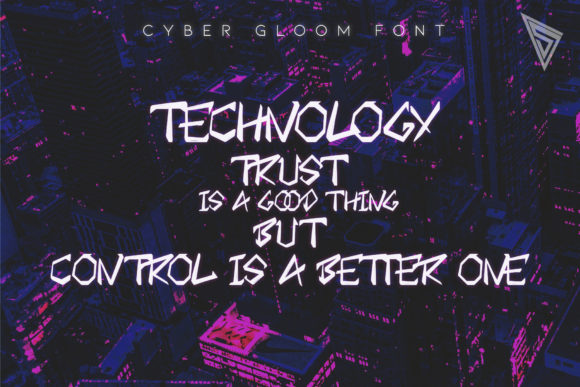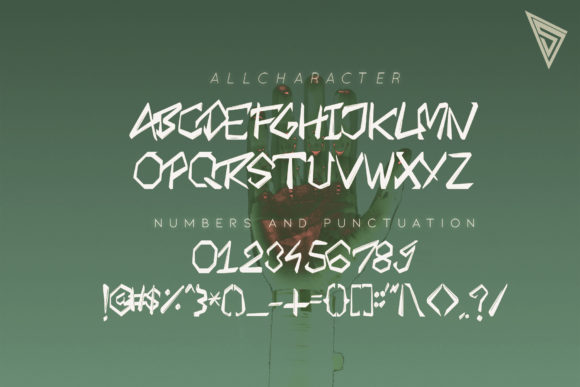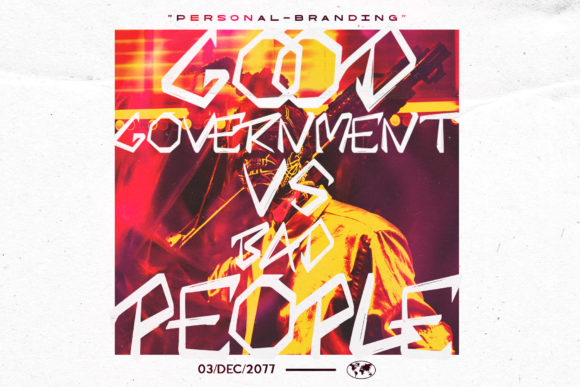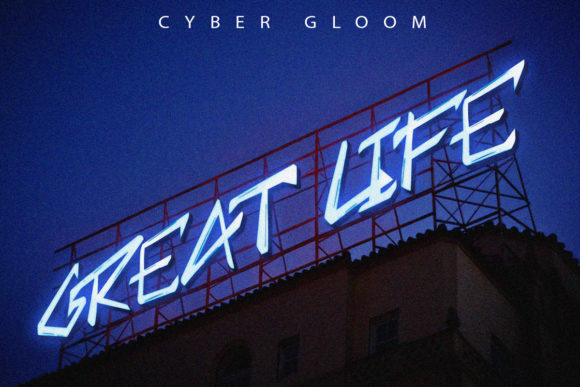
Introduction to Cyber Gloom Font
Have you ever found yourself in the middle of a creative project, pouring over lines of code, searching for the perfect font to bring your vision to life? The struggle is real, especially when you’re trying to convey a dark and edgy aesthetic. That’s where the Cyber Gloom Font comes in – a high-quality, free download that’s perfect for designers looking to add some spooky flair to their designs.
This versatile font is not just limited to horror-themed projects; its sleek and modern design makes it suitable for a wide range of creative endeavors, from sportswear logos to advertisements. With a transparent background and a bold, gothic-inspired style, the Cyber Gloom Font is a valuable design resource for anyone looking to add some depth and dimension to their work.
Key Features of Cyber Gloom Font
- Unique blend of futuristic and distressed design elements, perfect for creative projects and futuristic themes.
- Unique characteristic: distressed texture and glitch effects, adding a touch of cyberpunk style to any design.
Honest Review: Cyber Gloom Font
I recently had the opportunity to work with the Cyber Gloom Font, and I must say it’s been a great addition to my design arsenal. The font’s unique aesthetic has been a perfect fit for a recent creative project I was working on, and I’m glad I decided to give it a try.
- ✨ High-quality design: The font’s crisp and clean lines give it a professional look, making it ideal for a variety of design projects.
- ✨ Transparent background: The transparent background allows for seamless integration with other design elements, giving you more flexibility in your creative project.
- ⚠️ Limited customization options: While the font itself is high-quality, there are limited options for customization, which may be a drawback for some designers.
- ⚠️ Not suitable for all projects: The font’s unique aesthetic may not be suitable for all design projects, and designers should consider this before using it.
Overall, I’m impressed with the Cyber Gloom Font and would recommend it to designers looking for a high-quality, unique font for their creative projects.
Common Use Cases for Cyber Gloom Font
The Cyber Gloom Font is perfect for creating high-quality designs for creative projects, such as posters, flyers, and brochures. It’s also a great resource for designers looking for a free download with a transparent background.
What is the character set for the Cyber Gloom Font?
The Cyber Gloom Font includes a comprehensive character set, including uppercase and lowercase letters, numbers, punctuation, and special characters. The font is also designed to support multiple languages, making it a versatile design resource for global projects.